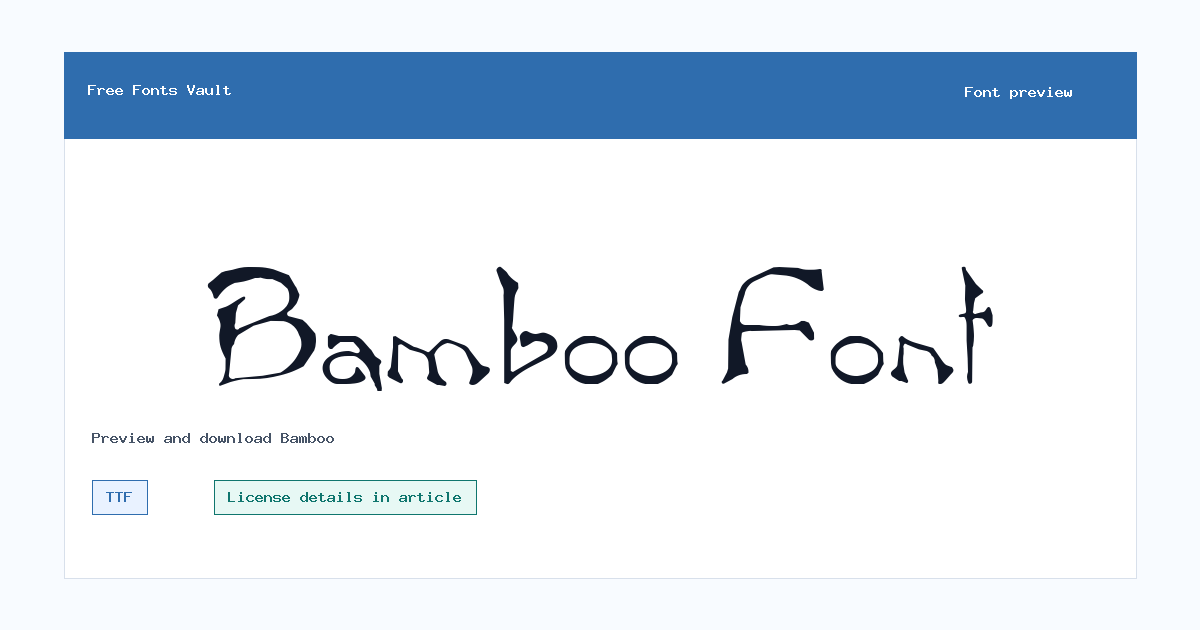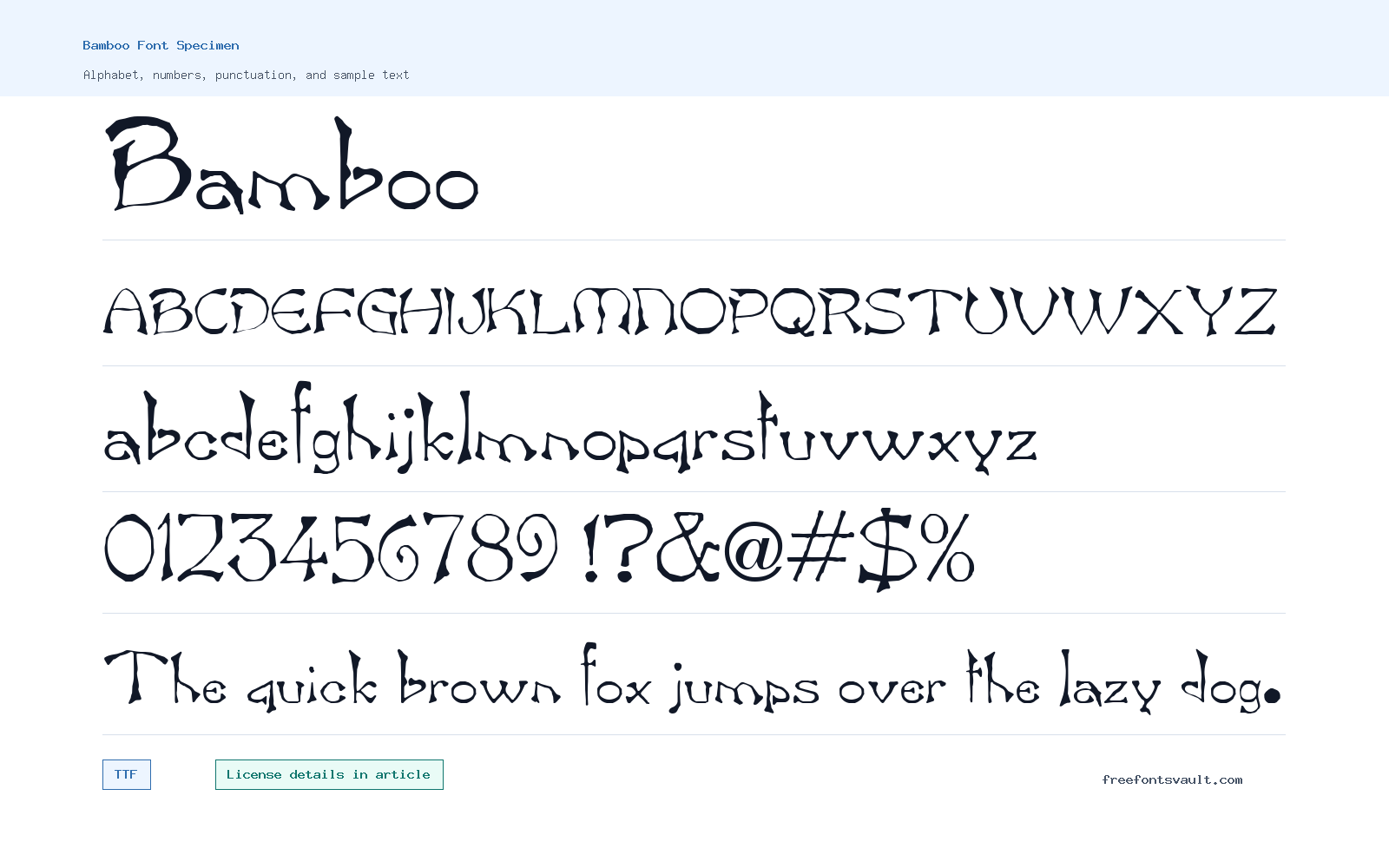
Bamboo
- Designer 1992 Image Club Graphics, Inc.
Bamboo is a decorative display font built for short, themed lettering. Its letters have a stalk-like shape that works well for tropical, tiki, jungle, summer, craft, and party-style designs.
About Bamboo Font
Bamboo uses a novelty letter style rather than a neutral text design. The forms are best read at larger sizes, where the segmented strokes and cut-stalk feel can come through clearly. It is a useful choice when a headline, invitation, label, classroom craft, or event graphic needs a natural or tropical mood without using an image as the main lettering.
Use Bamboo for short words, names, signs, menu headings, poster titles, stickers, and social graphics. It is not a good fit for paragraphs, small captions, long menus, or accessibility-critical text, because decorative shapes can slow reading when used too much. For cleaner layouts, pair it with a plain sans serif or simple serif for body copy, then keep Bamboo as the accent font.
- Decorative bamboo-stalk letter shapes suited to display use
- Tiki party invitations, summer event graphics, tropical posters, and jungle-themed titles
- Craft labels, classroom projects, novelty headings, and short decorative signage
Try Bamboo with short text first: one to four words usually works better than a full sentence. Add extra spacing if the preview feels crowded, avoid very small sizes, and check uppercase and lowercase combinations before exporting artwork. Be careful when comparing it with other fonts named Bamboo, because same-name fonts online may come from different designers and carry different licenses.
What kind of font is Bamboo?
Bamboo is a decorative display font with a bamboo-stalk look. It is made for short headings and themed lettering, not long reading text.
Where does Bamboo work best?
It works best in large display settings such as party graphics, tropical titles, tiki menus, jungle-themed posters, craft projects, and decorative labels.